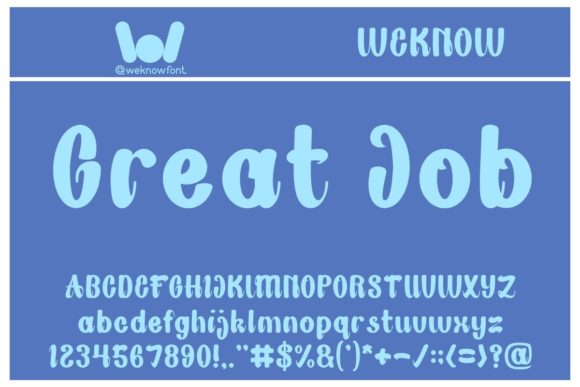
Nite Beezy: A Playful Brushed Script for Editors
As an editorial designer constantly searching for the perfect Nite Beezy to elevate a publication's voice, I have found that this Script Handwritten typeface offers a unique blend of approachability and style. Unlike rigid Fonts that feel corporate or sterile, Nite Beezy brings a human touch that immediately engages readers in blog headers, magazine covers, and digital newsletters. Its playful and brushed nature makes it an exceptional choice for content creators who want their work to feel personal yet professionally crafted.
Nite Beezy for Magazine Covers and Blog Headers
When selecting Nite Beezy for high-impact areas like magazine covers or main blog headers, the Script Handwritten style instantly communicates warmth and creativity. In the crowded landscape of online publishing, standard Fonts often fail to capture attention, but the distinct brush strokes of this typeface create a visual hook that stops the scroll. The fluidity of the letters suggests movement and energy, making it ideal for lifestyle blogs, travel guides, or creative portfolios where the tone needs to be inviting rather than authoritative. By using this display font for your primary headlines, you establish a strong brand identity that feels both modern and handcrafted.
Creating Visual Hierarchy with Brushed Typography
Implementing Nite Beezy effectively requires understanding its role within the visual hierarchy of a layout. As a Script Handwritten option, it excels as a dominant element for titles and section openers, guiding the reader's eye through the narrative flow. When paired with a clean sans serif font for body copy, the contrast between the organic brush strokes and geometric structure creates a balanced and readable experience. This combination ensures that while the Fonts used for headings are decorative, the actual reading experience remains comfortable on screens and in print. The playful nature of the typeface adds personality without sacrificing the clarity needed for effective communication.
Nite Beezy for Ebook Titles and Chapter Openers
For authors and publishers creating ebooks, Nite Beezy serves as a powerful tool for designing memorable cover art and engaging chapter openers. The Script Handwritten aesthetic transforms a standard PDF into a tactile, book-like experience that resonates with readers looking for inspiration or self-help guidance. Whether you are designing a recipe collection, a coaching workbook, or a creative journal, the unique character of these Fonts adds a layer of intimacy that typed text alone cannot achieve. It signals to the reader that the content inside is curated with care and passion, encouraging them to dive deeper into the material.
Enhancing Reader Engagement with Quote Graphics
One of the most effective ways to utilize Nite Beezy is by creating pull quotes and social media graphics that highlight key insights from your articles. These Script Handwritten elements break up dense blocks of text and provide visual breathing room, which is essential for maintaining reader engagement in long-form content. When shared on platforms like Instagram or Pinterest, these quote cards featuring the playful brush style stand out against the sea of generic typography. The versatility of the Fonts allows you to maintain consistency across your blog, email newsletter, and social channels, reinforcing your publication's brand identity with every share.
Nite Beezy for Branding and Creative Product Design
Beyond editorial layouts, Nite Beezy proves invaluable for broader branding projects such as logos, t-shirt printing, and creative product packaging. The Script Handwritten quality lends itself perfectly to brands that want to appear artisanal, friendly, and authentic. For independent creators selling digital downloads, printable planners, or physical merchandise, using these Fonts can differentiate your products in a saturated market. The extraordinary look of the typeface in various color combinations ensures that your logo or product label catches the eye and leaves a lasting impression on potential customers.
Practical Applications for Printables and Worksheets
Designers creating printable guides, worksheets, and lead magnets will find Nite Beezy to be an asset for adding a professional yet personal flair to their templates. The Script Handwritten style works beautifully for section headers in planners or accent text in educational materials, making the documents feel less like corporate forms and more like personalized tools. When exporting these designs for print or digital distribution, the clarity of the Fonts holds up well, ensuring that the brush details remain crisp even at smaller sizes. This reliability makes it a top choice for educators, coaches, and content marketers who rely on high-quality design assets to deliver value to their audience.
Nite Beezy Font Pairing Strategies for Editors
To maximize the impact of Nite Beezy, strategic font pairing is essential for achieving a cohesive editorial design. Because this Script Handwritten typeface is so expressive, it pairs best with neutral, highly legible fonts for body text, such as a classic serif font or a modern sans serif font. This contrast allows the playful personality of the headline to shine without overwhelming the reader during long reading sessions. By carefully selecting complementary Fonts, you create a harmonious layout that supports readability while showcasing the unique charm of the display typeface. This balance is crucial for maintaining E-E-A-T standards in your content presentation.